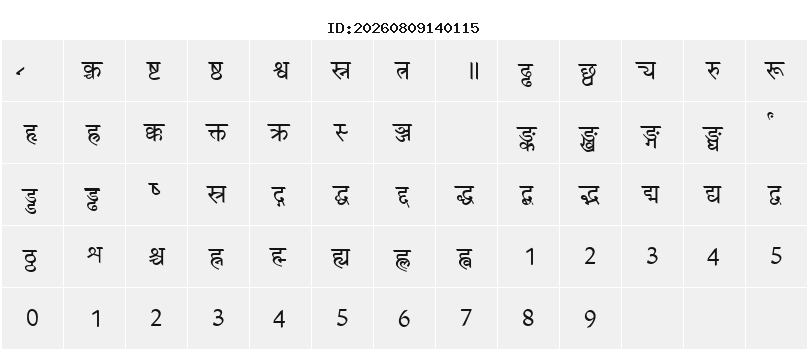
Patrika.ttf is a modern, elegant sans-serif font designed for ultimate readability and visual harmony. Perfect for branding, headlines, web design, and print materials.